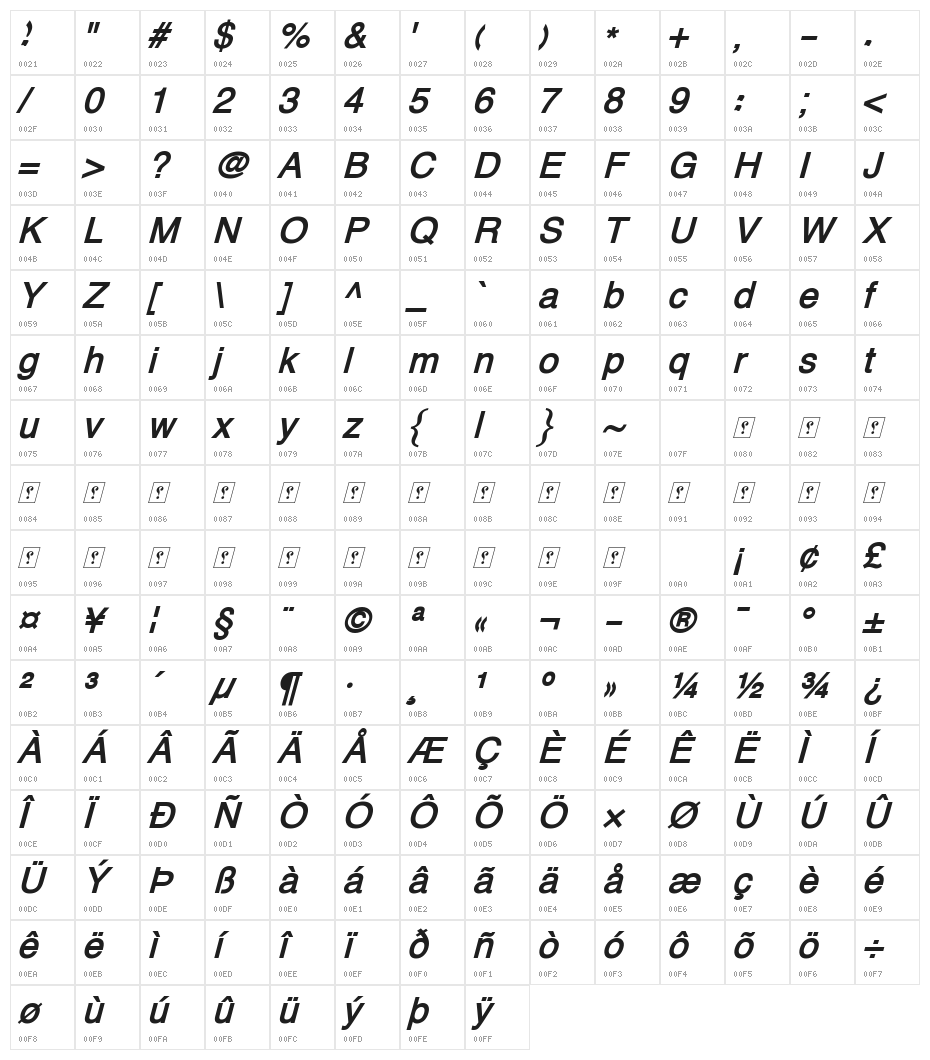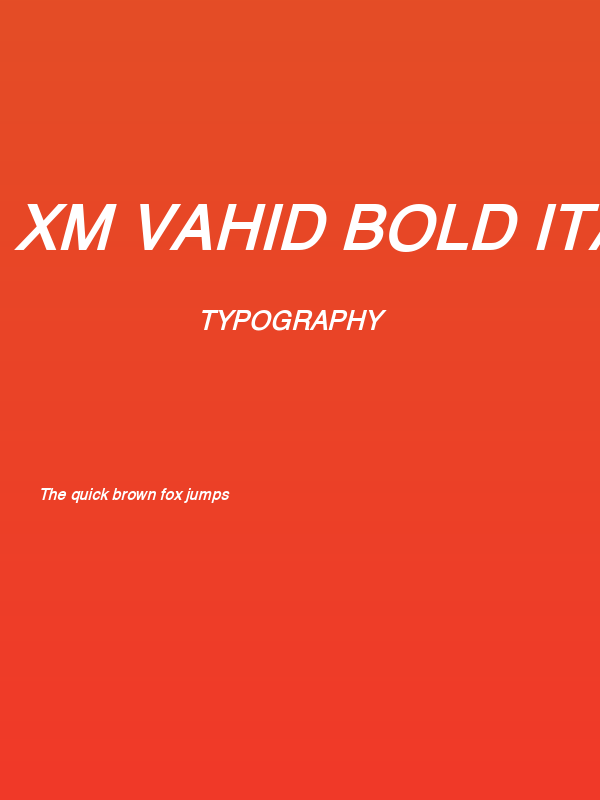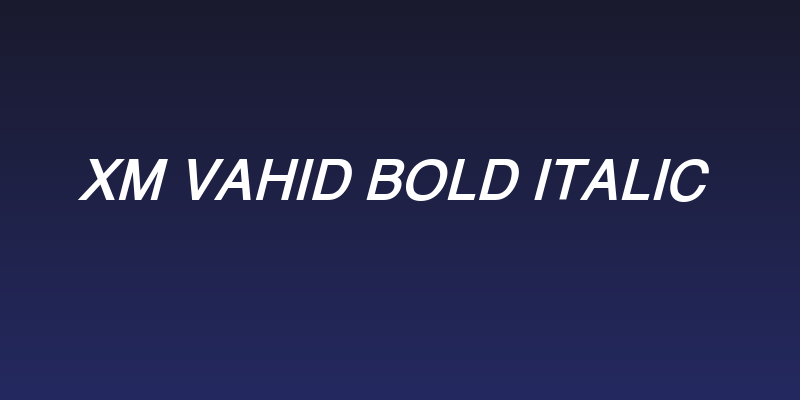
XM Vahid Bold Italic Font
XM Vahid Bold Italic Description
This font exhibits a bold and italicized style, characterized by its strong and assertive presence. The letters are slanted, adding a dynamic and forward-moving feel. The strokes are thick, providing a sense of stability and confidence. The uppercase and lowercase letters maintain a consistent style, ensuring readability and uniformity. The numerals are clear and robust, matching the overall boldness of the font. Special characters are well-defined, complementing the alphabetic characters seamlessly. This font is suitable for making impactful statements and grabbing attention.
| Use Case | Headlines, Logos, Advertising |
| Proposed Projects | Ideal for headlines, advertising, branding, and any project requiring a bold statement. |